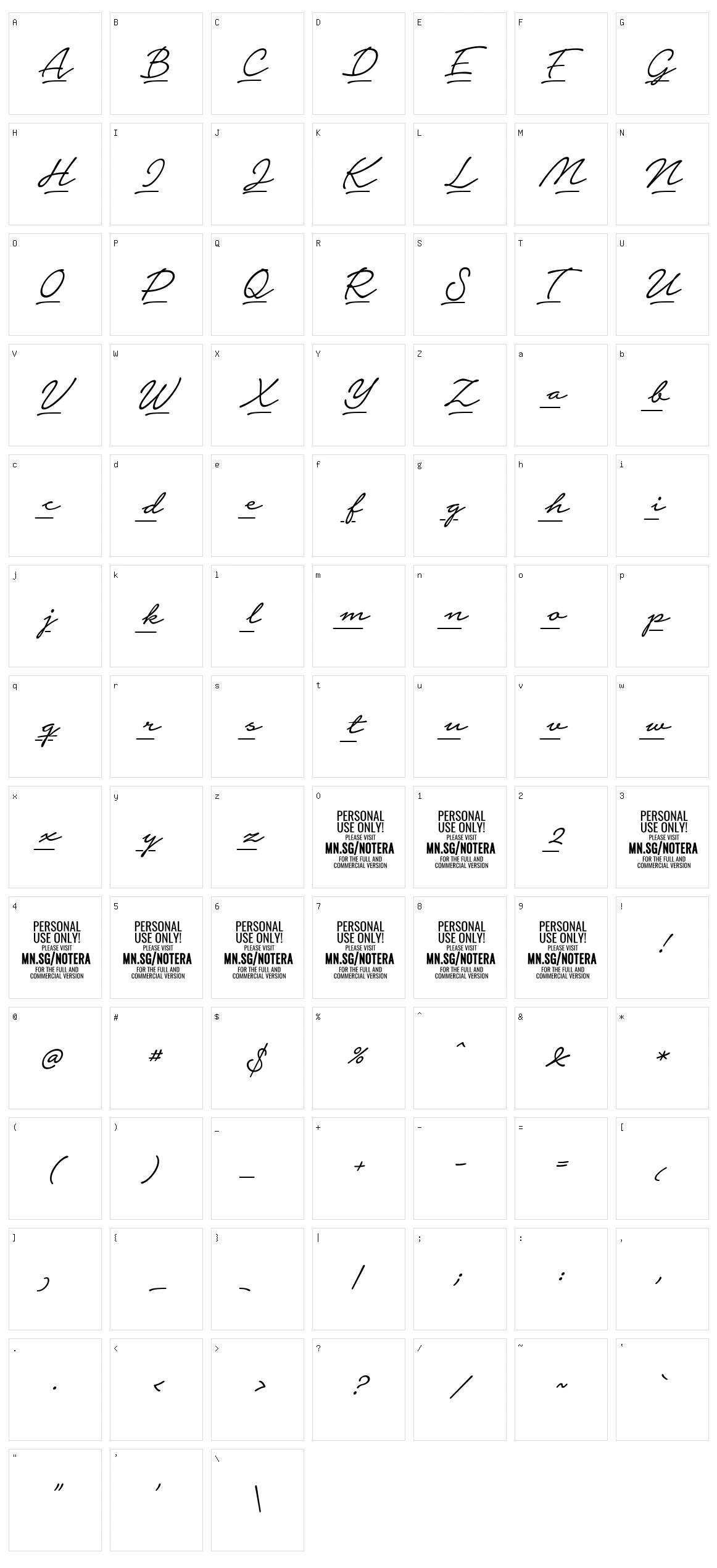
Notera 2 is a handwritten typeface drawn and created by Måns Grebäck in 2018.
It is a recreation of the popular Notera font, extended to five weights:
Thin, Light, Medium, Bold and Black.
With its hundreds of glyphs, Notera 2 supports a very wide range of languages.
The font contains OpenType features such as stylistic and contextual alternate alphabets for a genuine handwritten style.
Together with the regular font, also included is the Notera 2 Underline font, for decorative underlining.